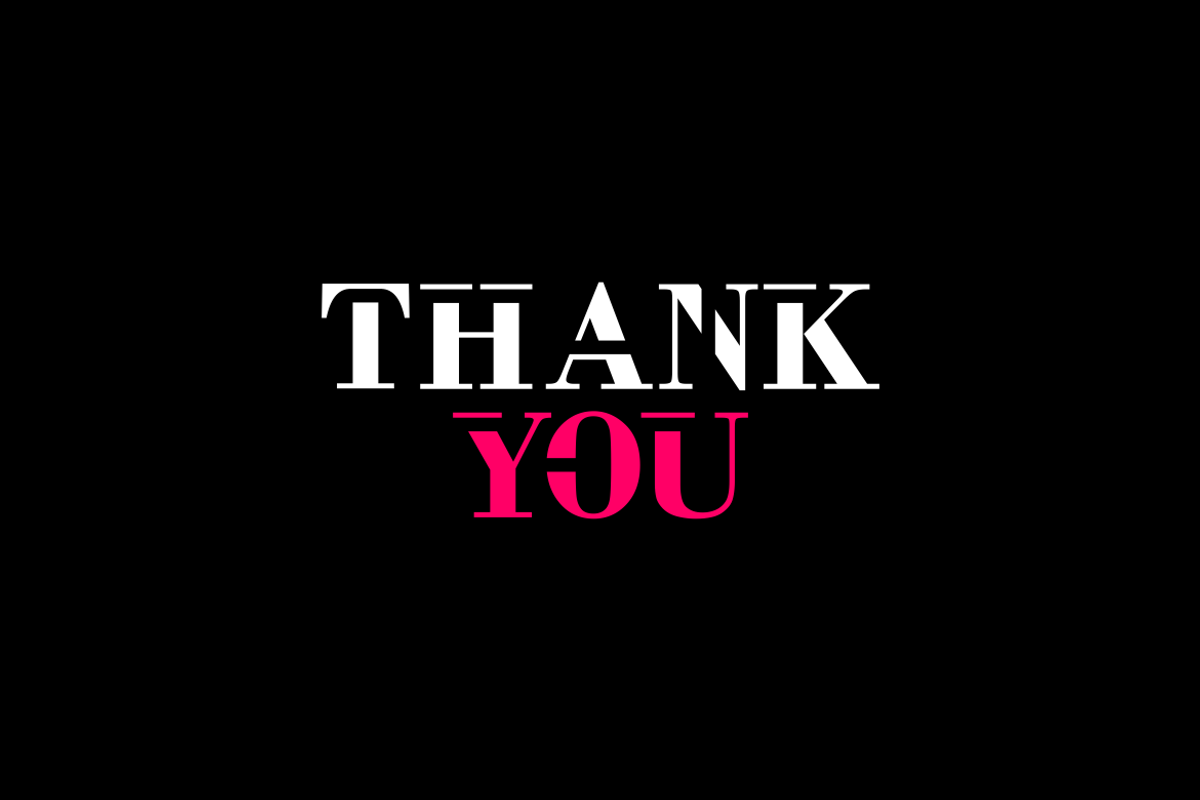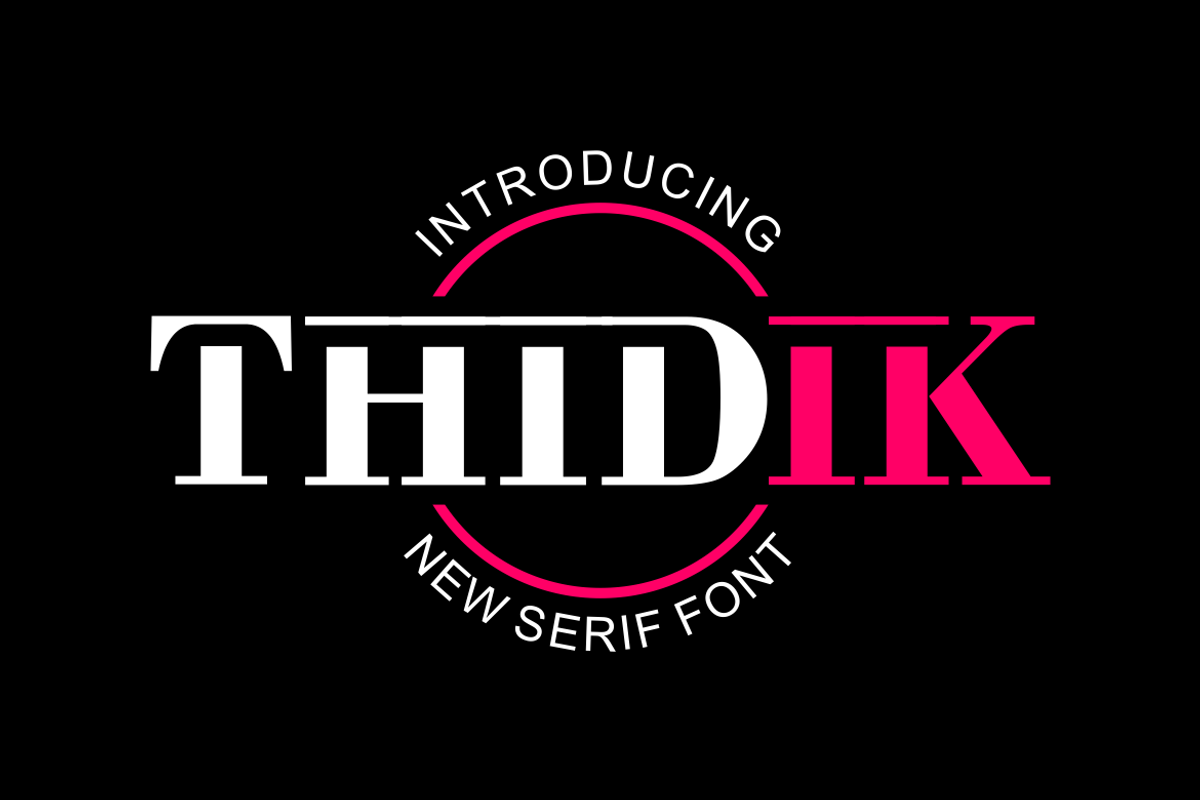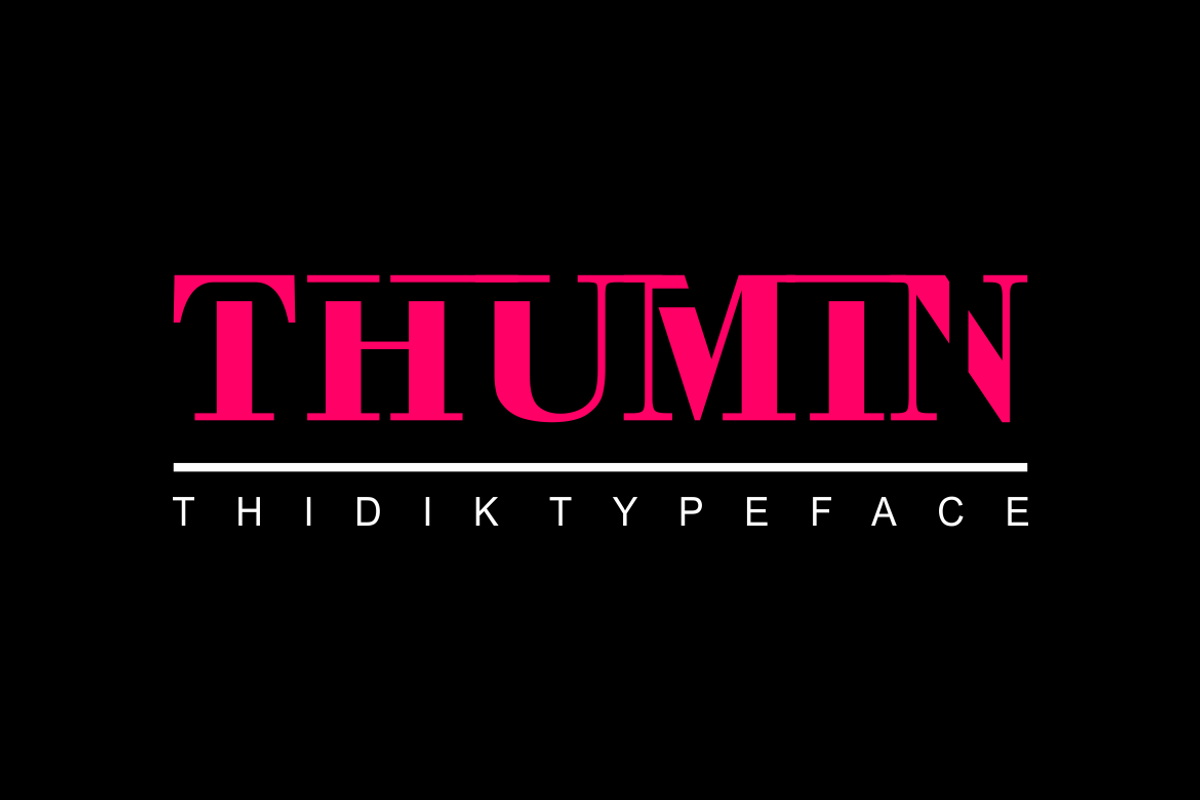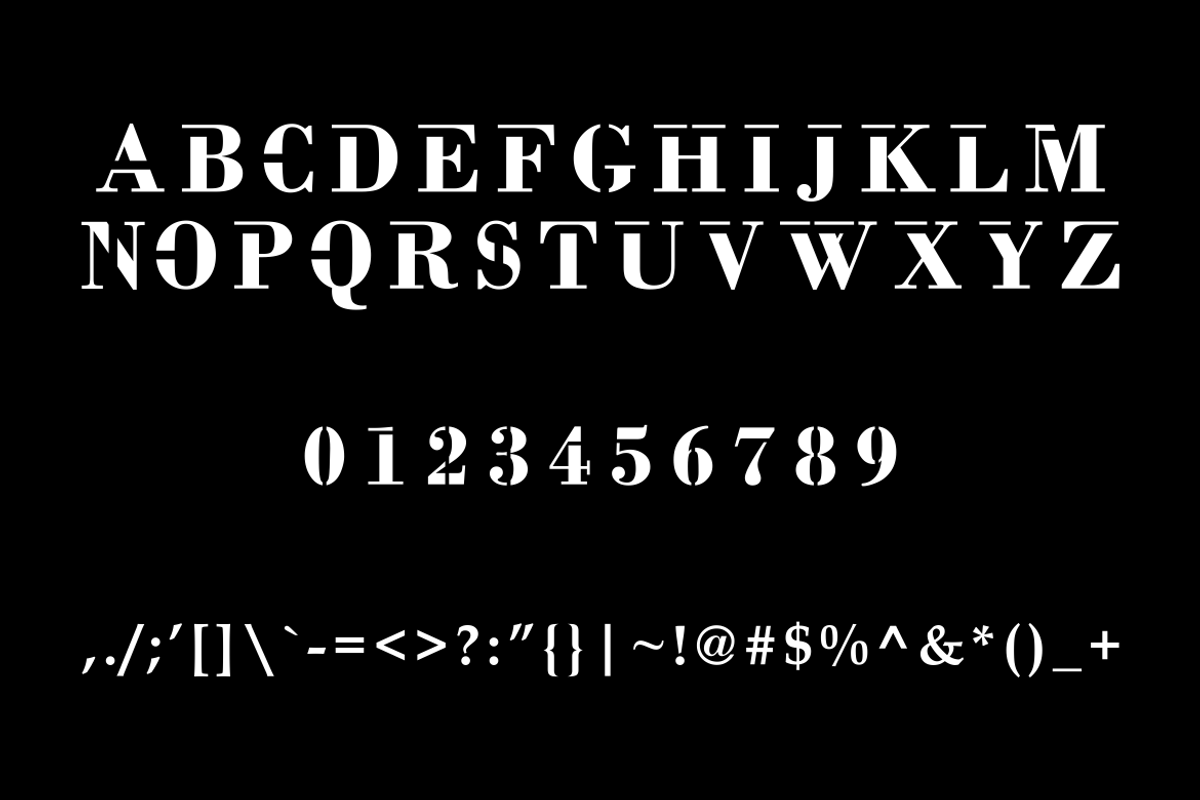
Thidik Font
Introducing our new product Thidik Font - Modern Font
Thidik Font- Modern Font is a bold and authentic display font. The font is suitable for any branding project like logo, t-shirt printing, esport, and many more. outstanding in a wide range of contexts.